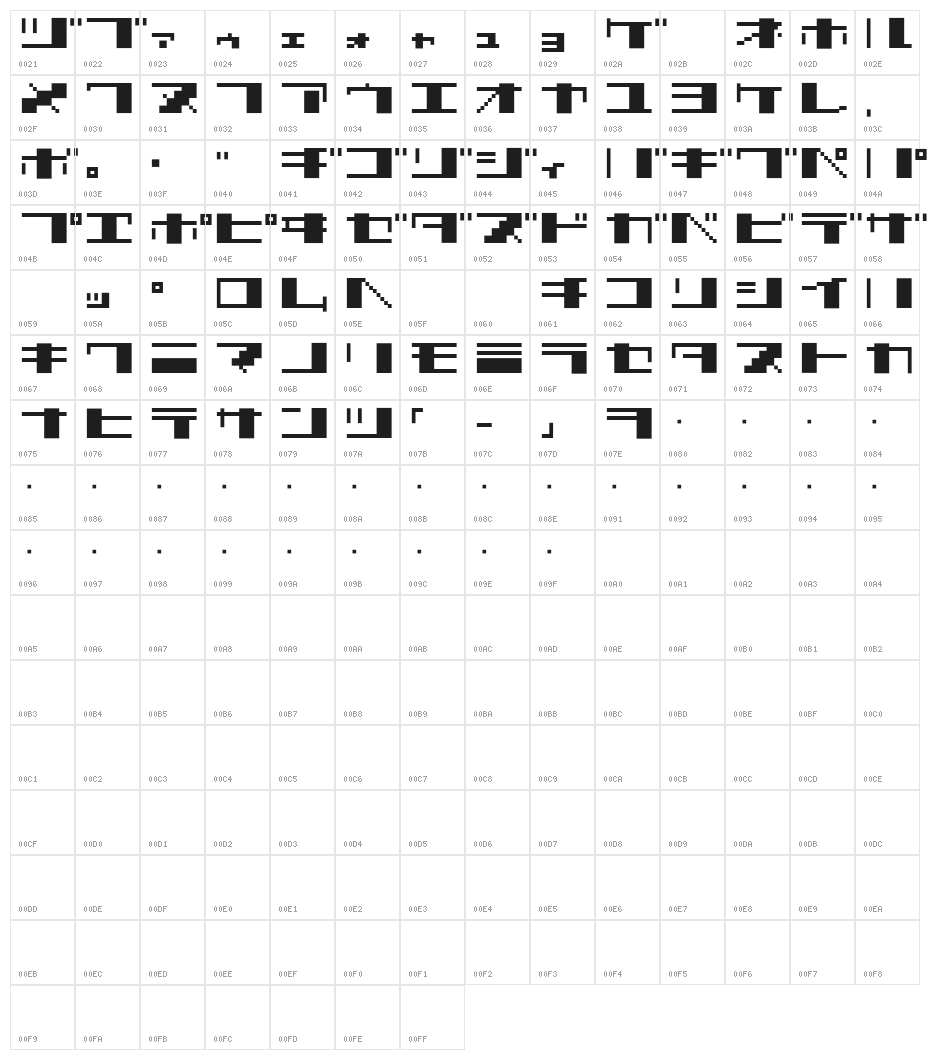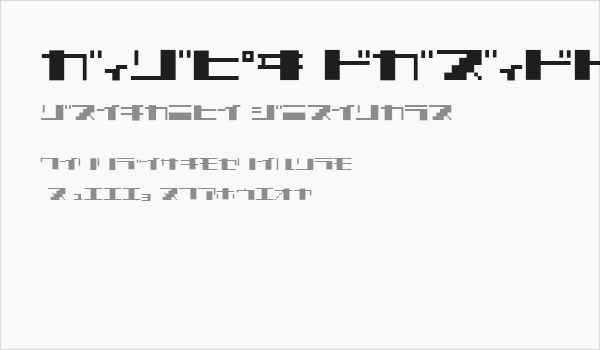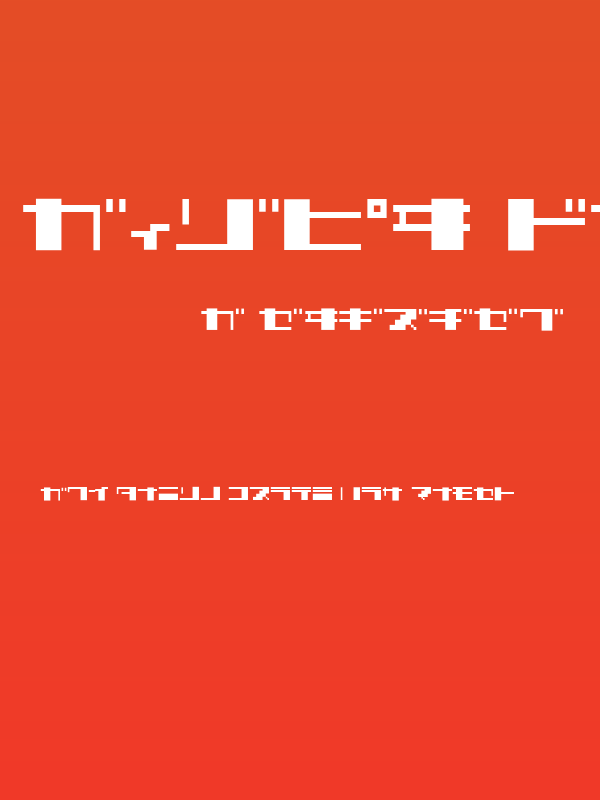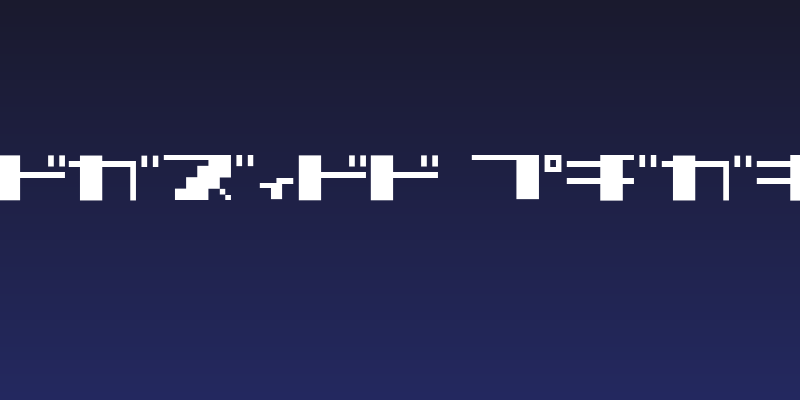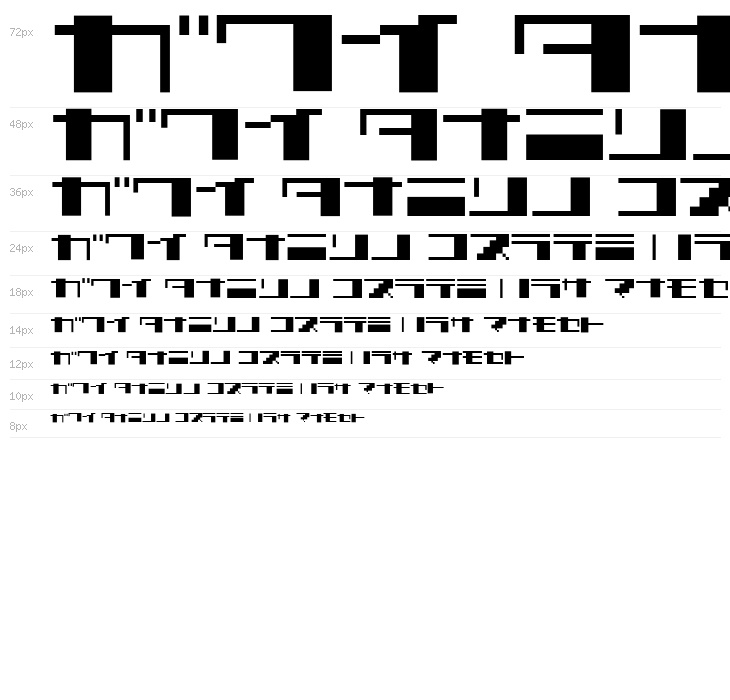
TECNO STRESS KATAKANA Font
TECNO STRESS KATAKANA Description
This font features a bold, geometric style with a distinctly digital and futuristic aesthetic. The characters are constructed with sharp angles and straight lines, giving it a blocky and pixelated appearance reminiscent of early digital displays or retro video games. The uniformity in stroke width across all characters contributes to a cohesive and structured look. The font's design is highly stylized, making it more suitable for decorative purposes rather than body text. It captures a sense of modernity and technological advancement, making it ideal for projects that aim to convey innovation and a cutting-edge vibe.
| Proposed Projects | Ideal for tech-related branding, video game design, digital art projects, and futuristic-themed posters. |